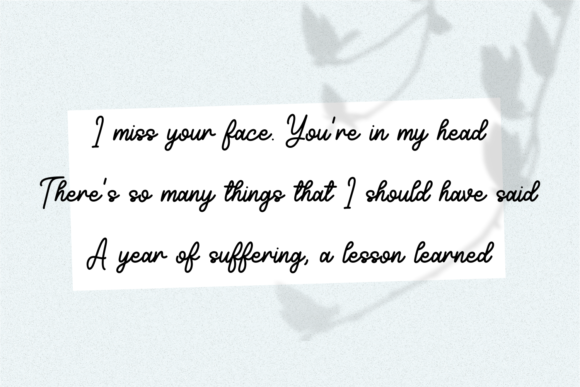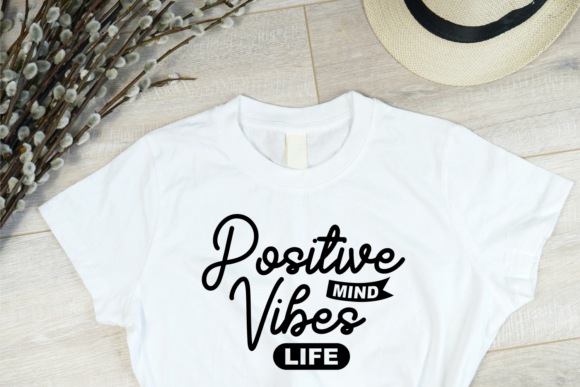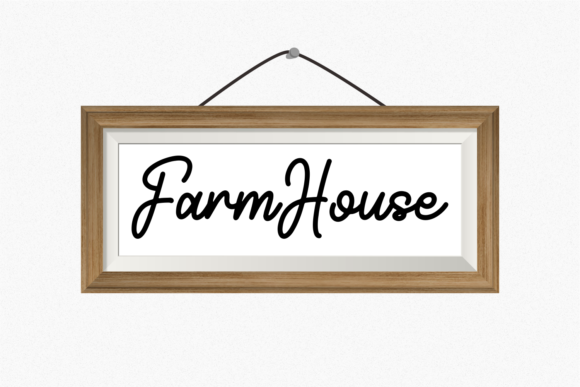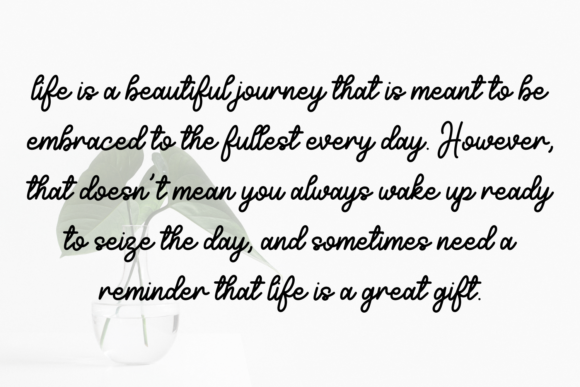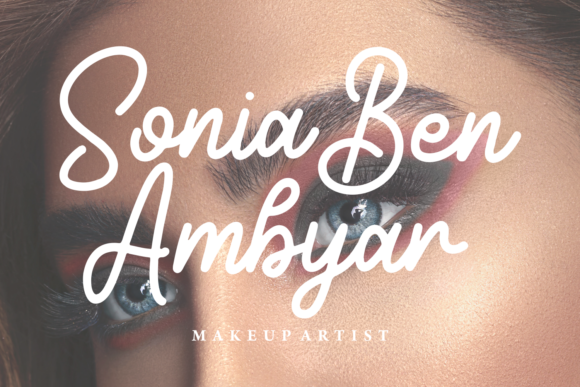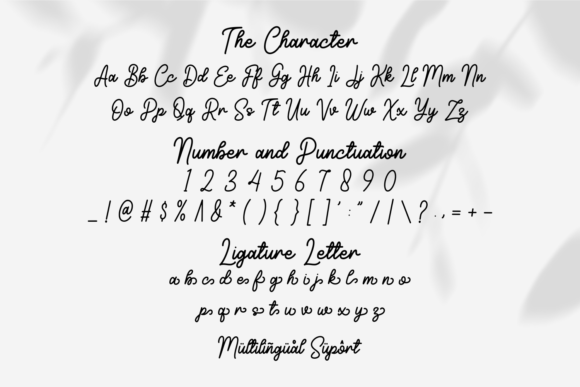
Introduction to Honey and Friends Font
Honey and Friends is a fancy and elegant handwritten font created to impress your audience and make your branding shine.
Make your projects dance with this elegant and wonderful font wherever you use it Use it for your headings, logos, ads, printed quotes, packaging, and even your website or social media branding.
Honey and Friends Font offers exceptional quality and versatility, making it a valuable addition to your design toolkit. Whether you’re creating for personal projects or commercial use, Honey and Friends Font delivers professional results.